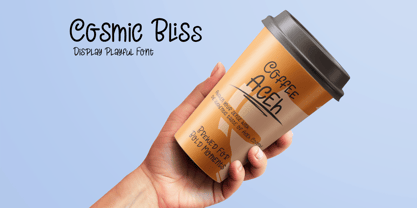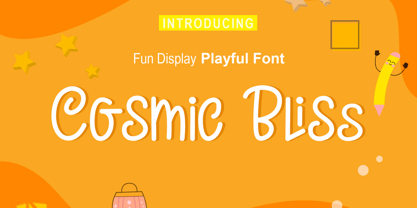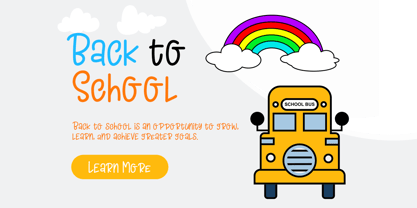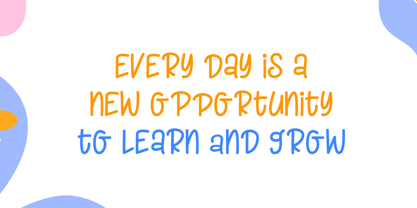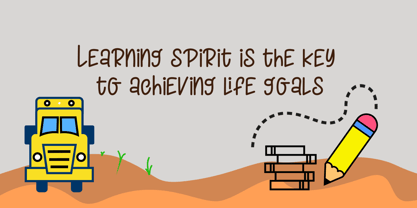
Cosmic Bliss
by Fontysia
The Cosmic Bliss Font Family was designed by Rizal Aiyub and published by Fontysia. Cosmic Bliss contains 1 styles. More about this family
Cosmic Bliss is a fun display playful font created with natural handwritten type with thin.
Cosmic Bliss Playful Display Font is suitable for greeting cards, invitations, posters, baby clothing, books cover, quotes, logos, presentations, headline, etc. Cosmic Bliss will turn any creative idea into a true piece of art and is ready to make your design looks great and fun!
Designers: Rizal Aiyub
Foundry: Fontysia